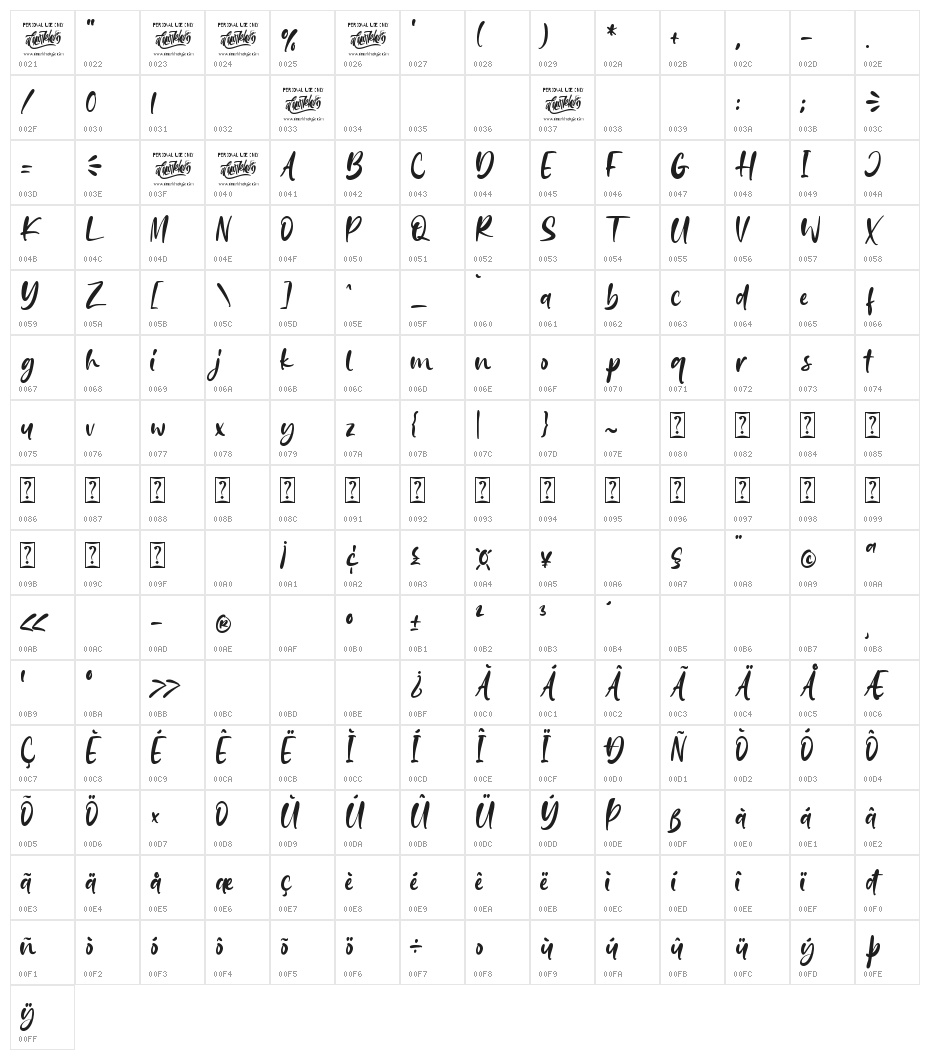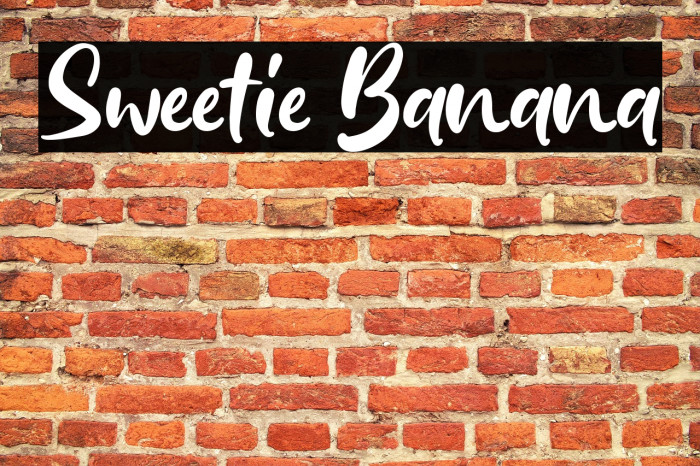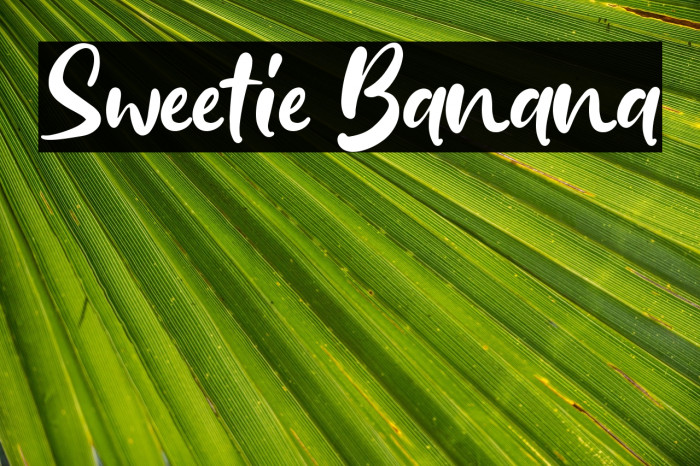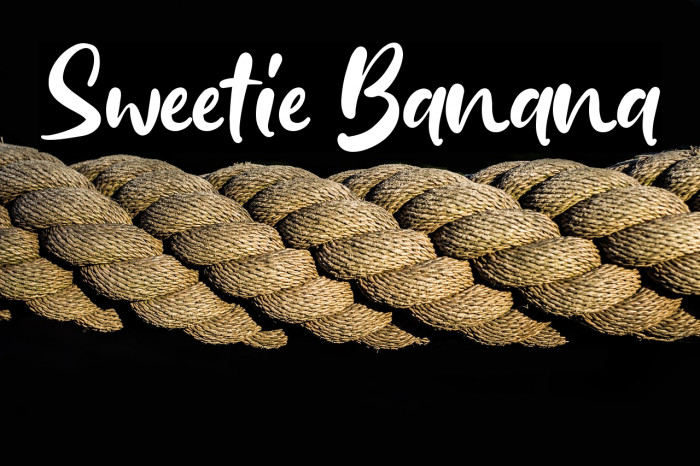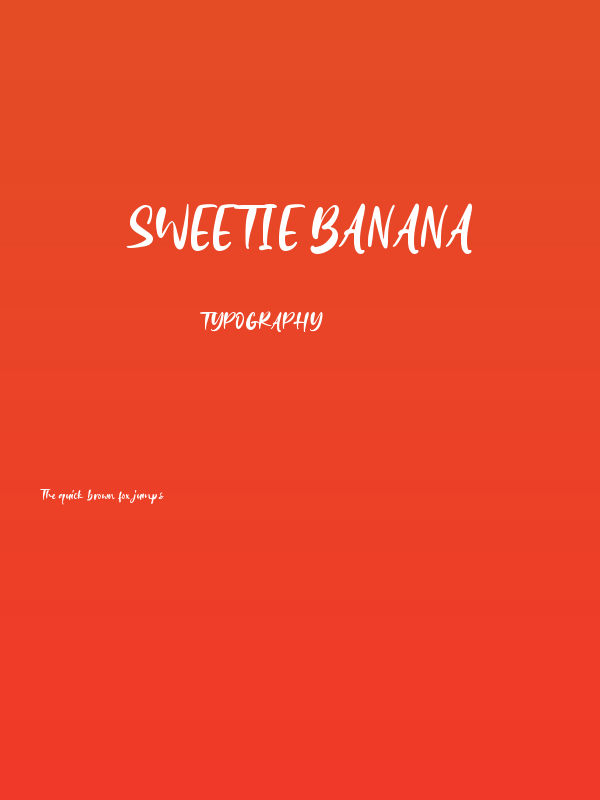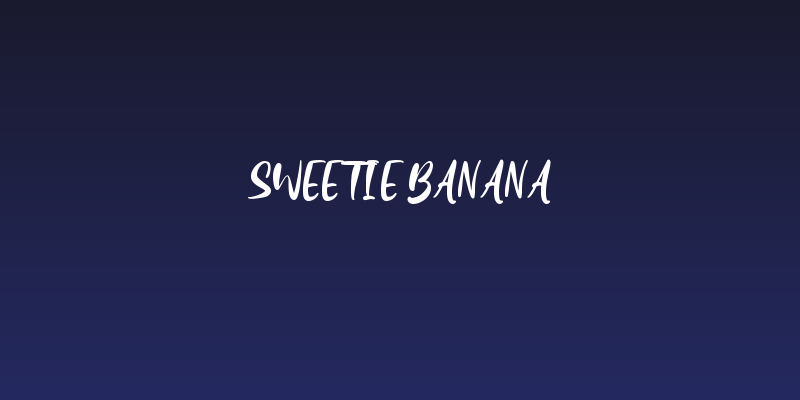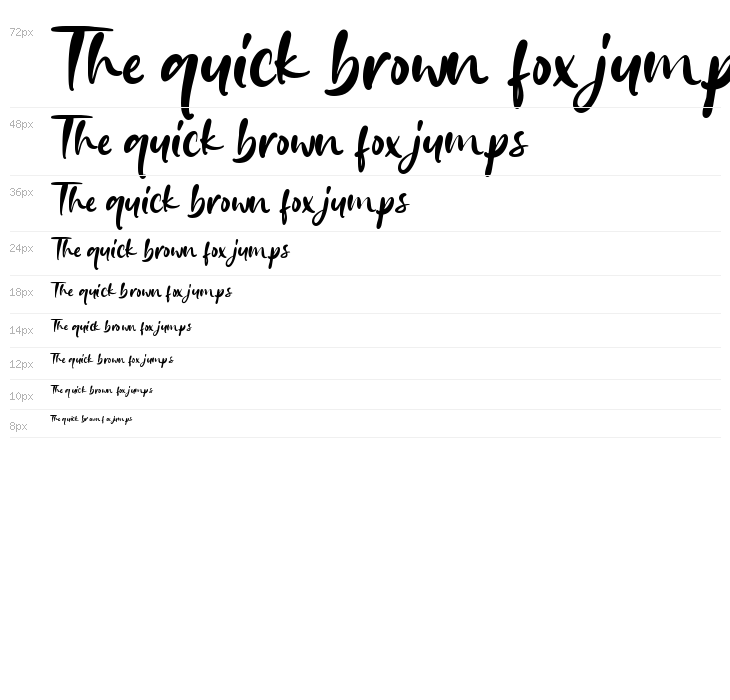
Sweetie Banana Font
Sweetie Banana Description
This font features a playful and energetic script style, characterized by its fluid and dynamic strokes. The uppercase letters are bold and expressive, with a slight slant that adds a sense of movement. The lowercase letters maintain a consistent flow, complementing the uppercase with their rounded and smooth curves. The numbers and special characters are crafted with the same lively spirit, ensuring a cohesive look across all text. The font's overall appearance is casual yet stylish, making it suitable for a variety of creative projects. Its handwritten quality adds a personal touch, while the boldness of the strokes ensures readability.
| Proposed Projects | Ideal for greeting cards, invitations, branding, and social media graphics. |